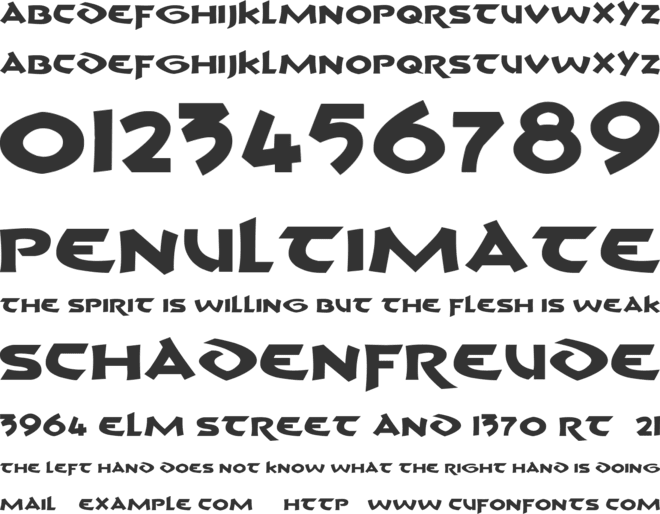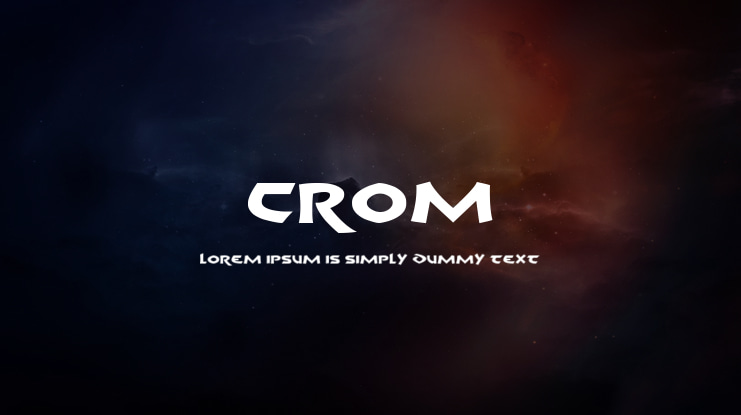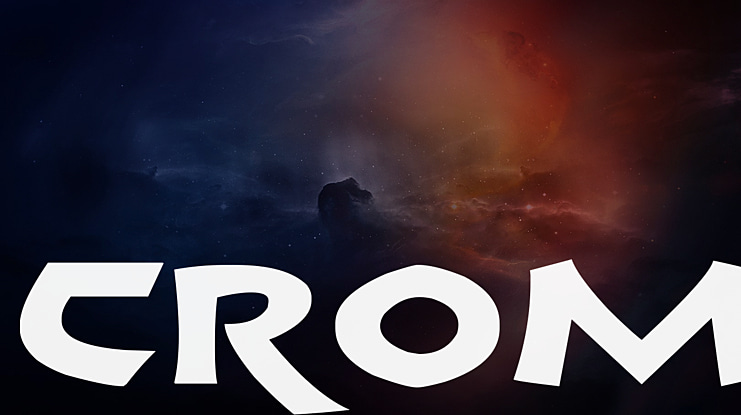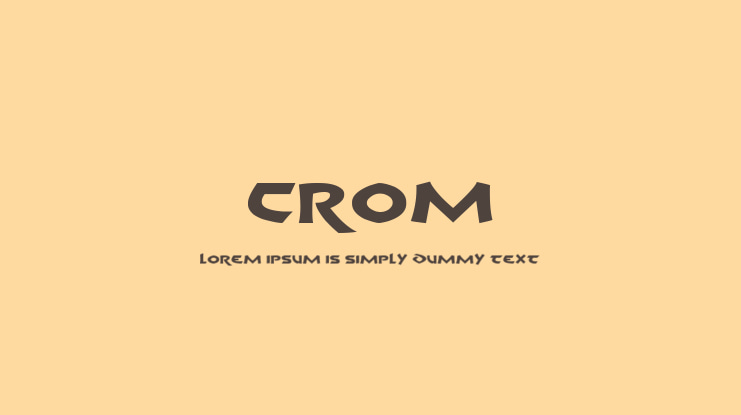
Crom Font
I always like the typeface used for the title and such in the Conan movies and books. I set about mking my own version of it, and here it is. Now ask yourself this. WHAT IS BEST IN LIFE?